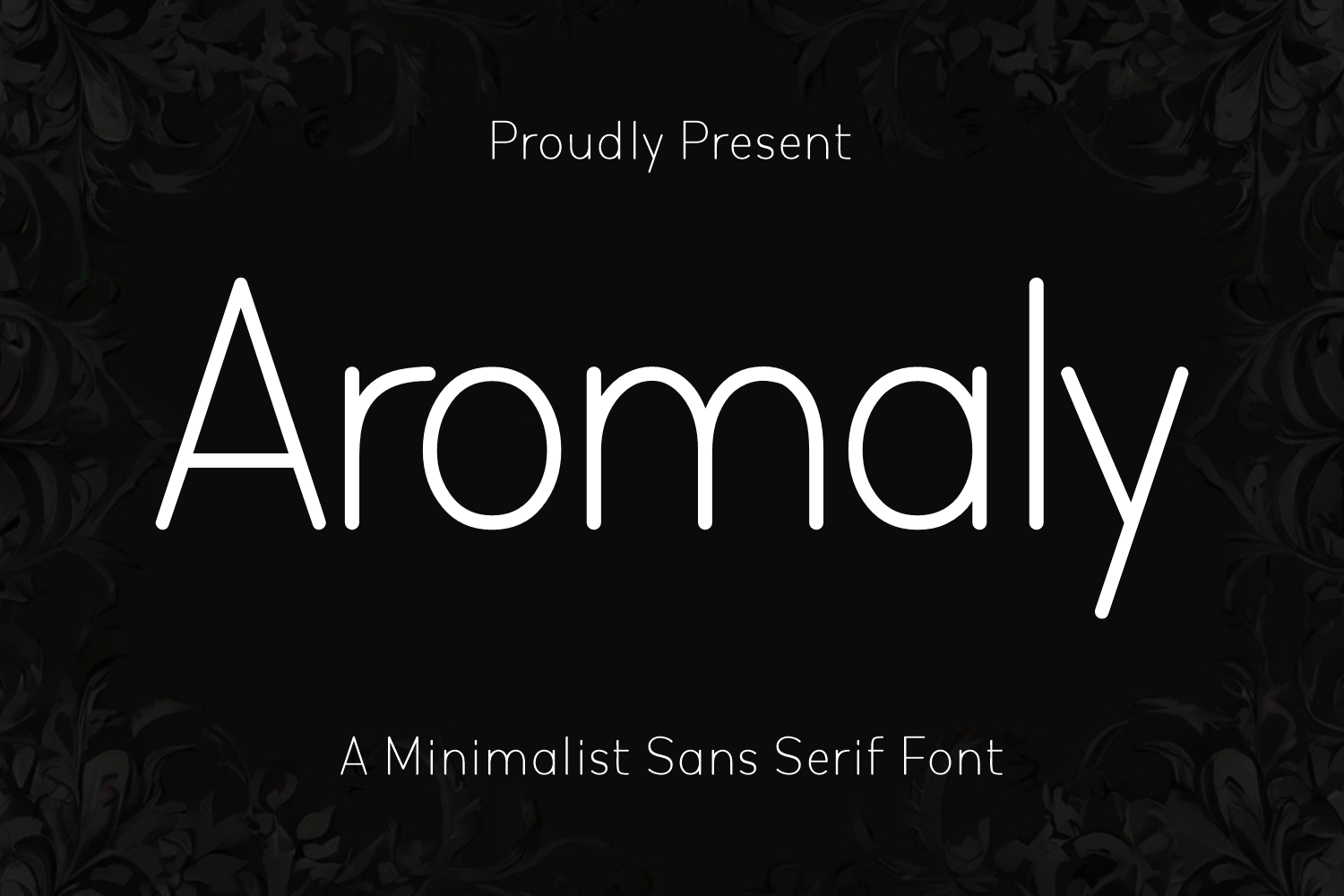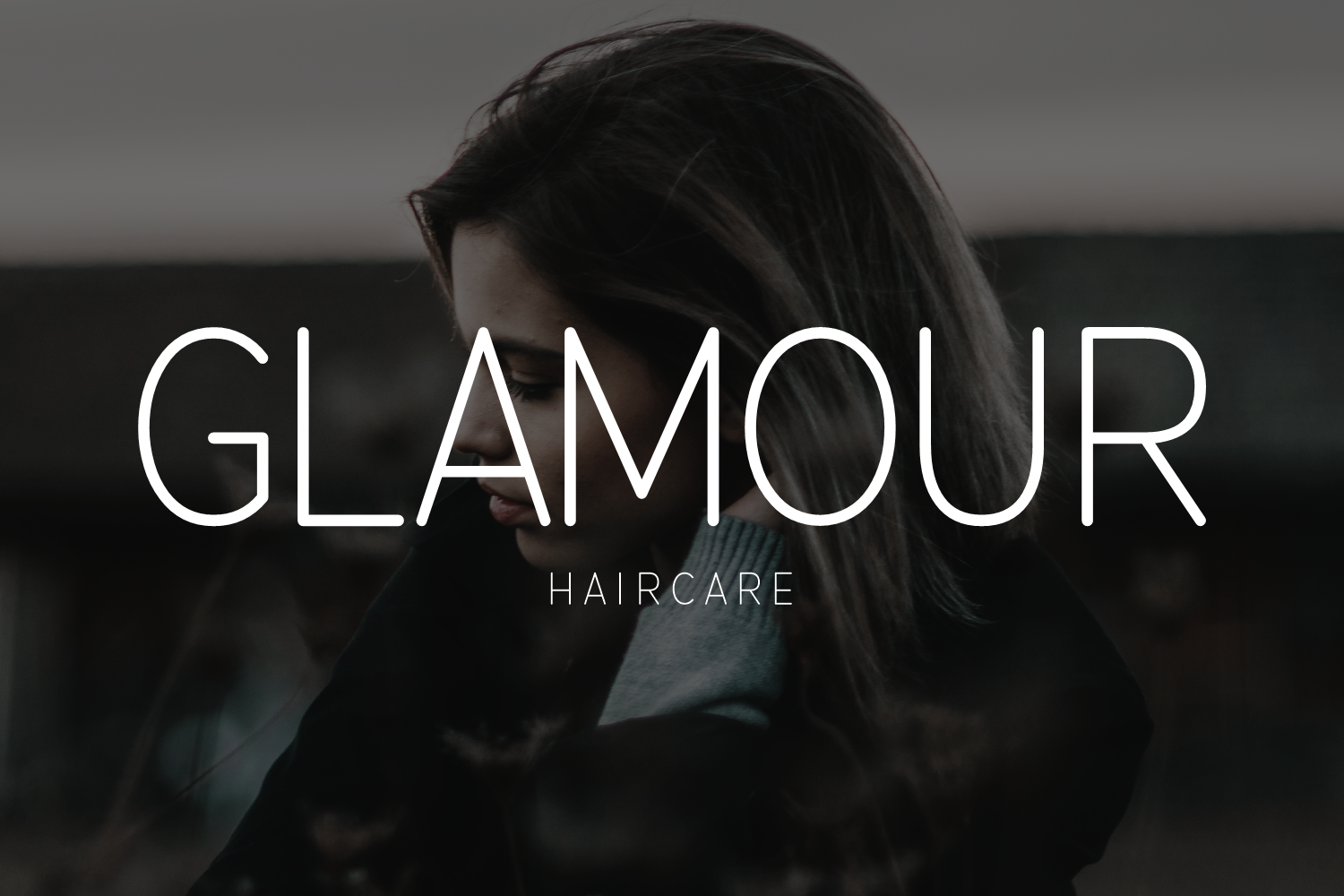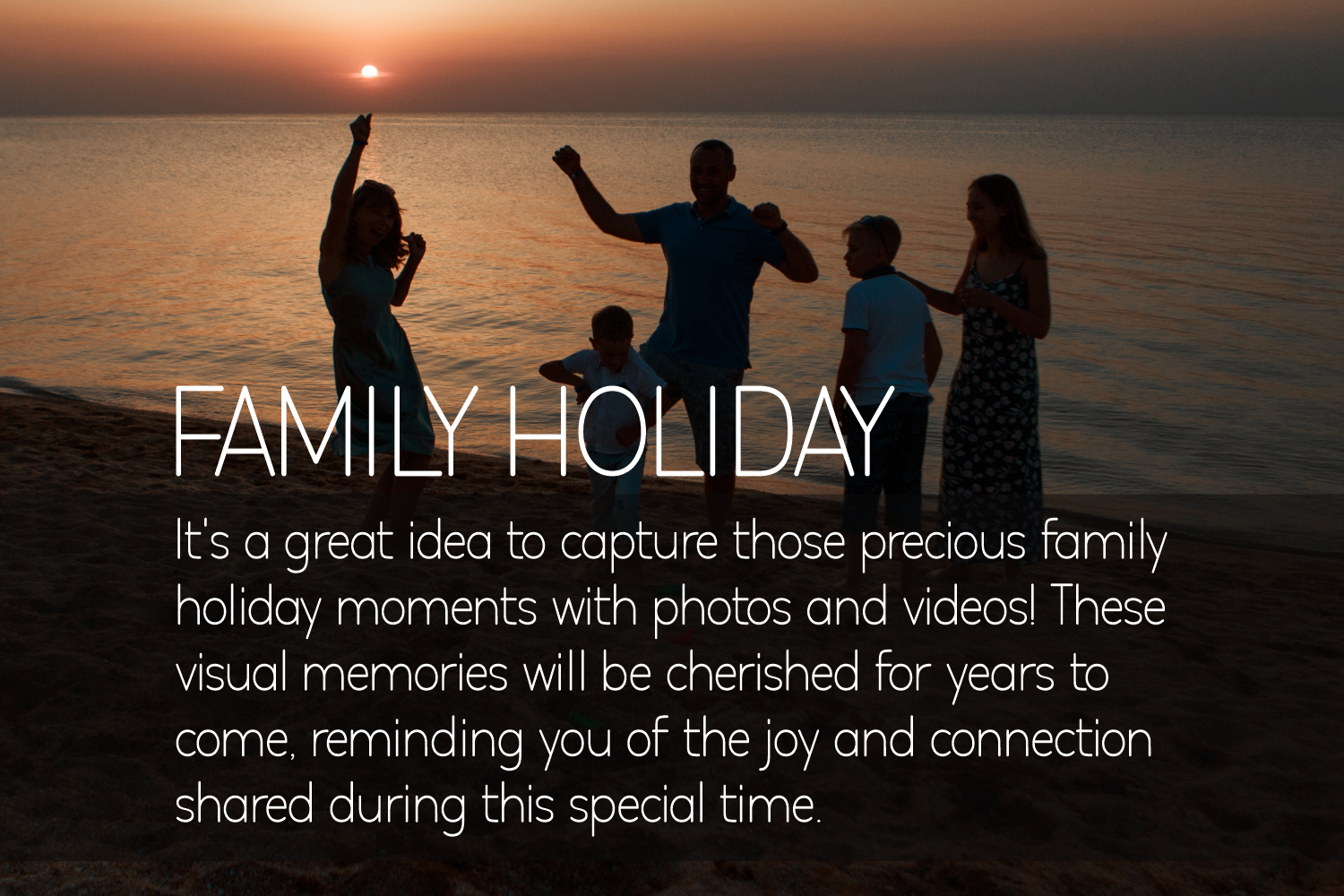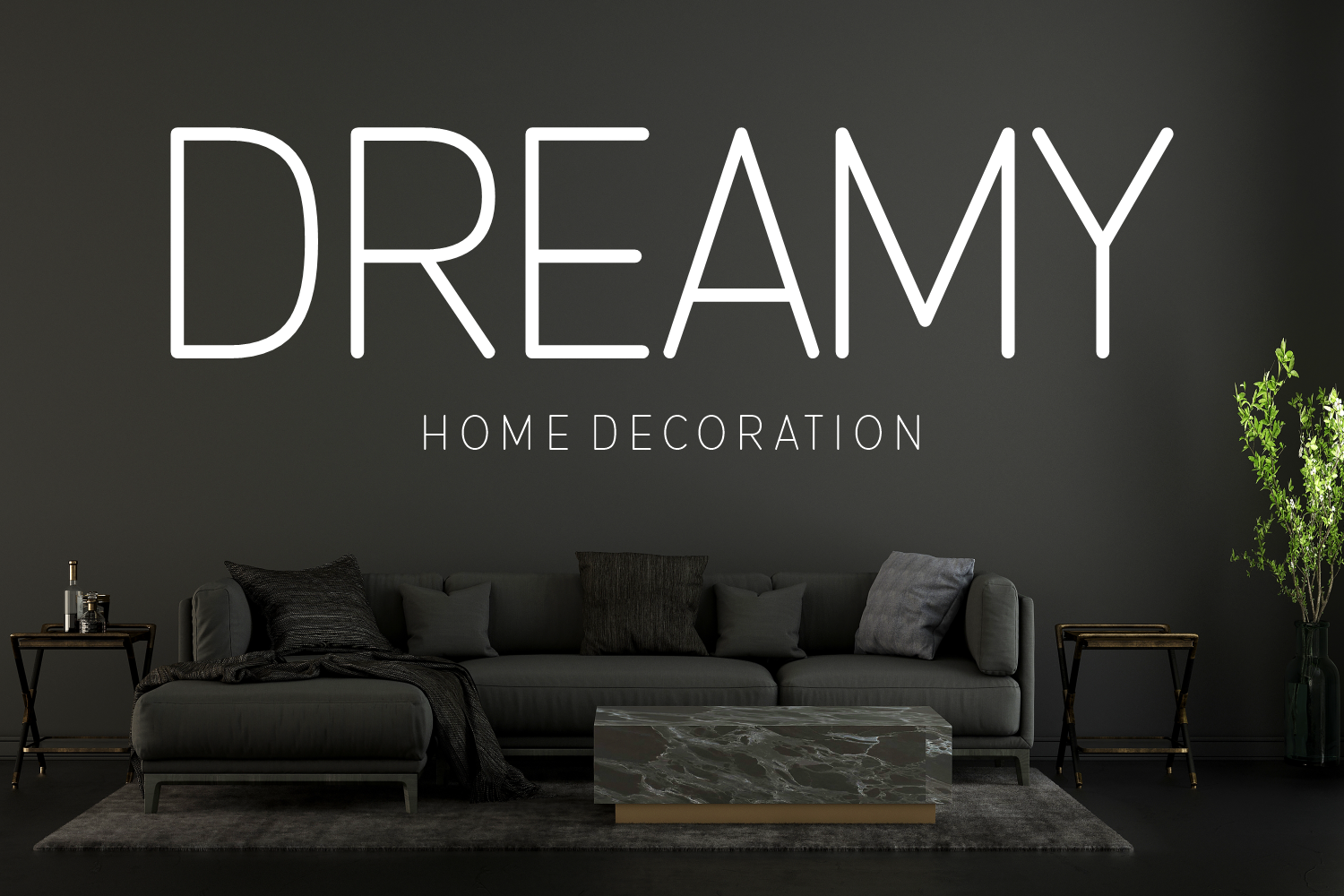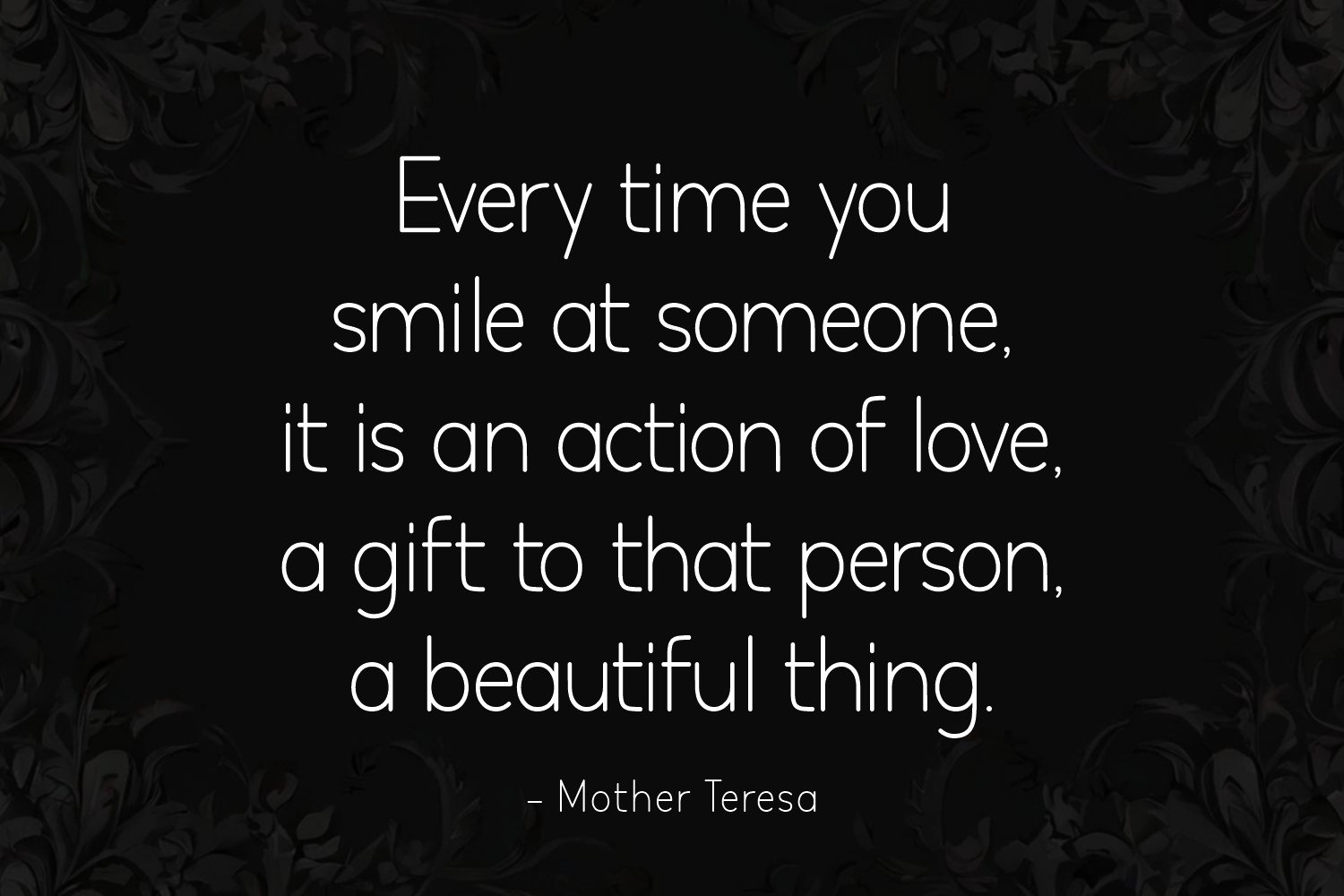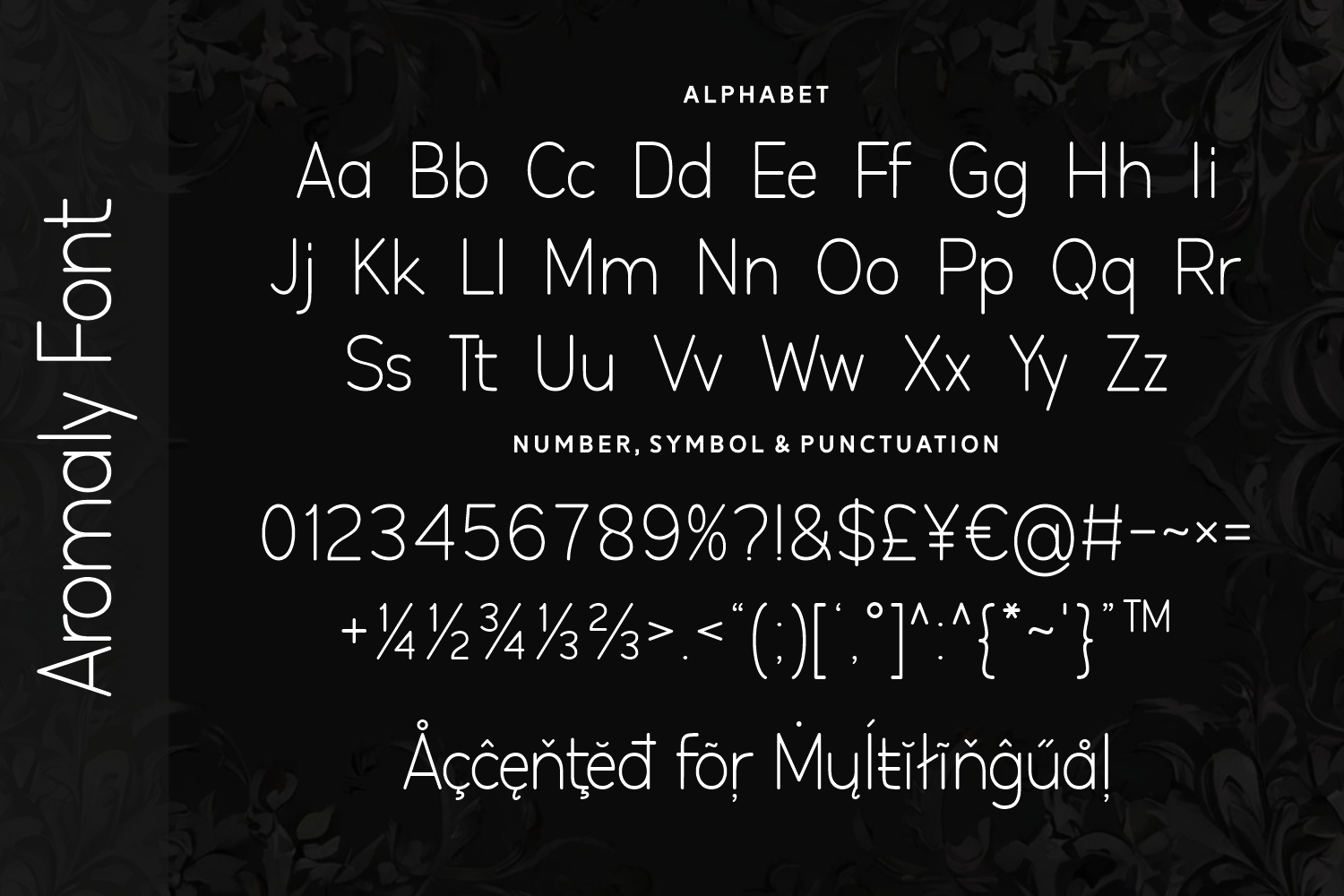
Aromaly is a minimalist and versatile sans serif typeface with smooth rounded forms and a clean, modern presence. Its soft curves and balanced proportions create an approachable yet refined aesthetic, ideal for branding, packaging, digital interfaces, and editorial layouts that call for understated elegance and effortless readability.